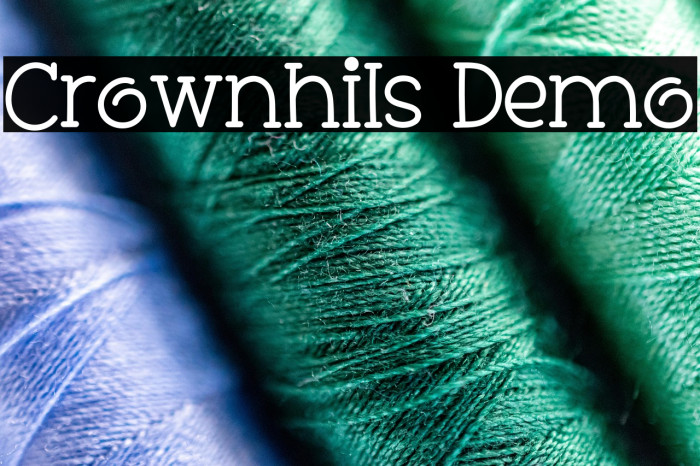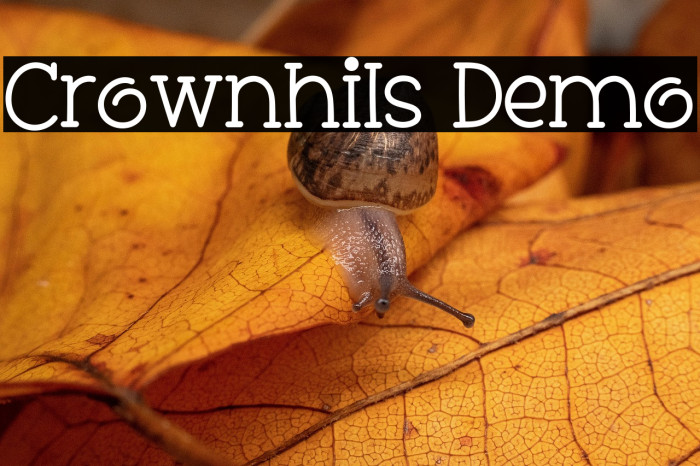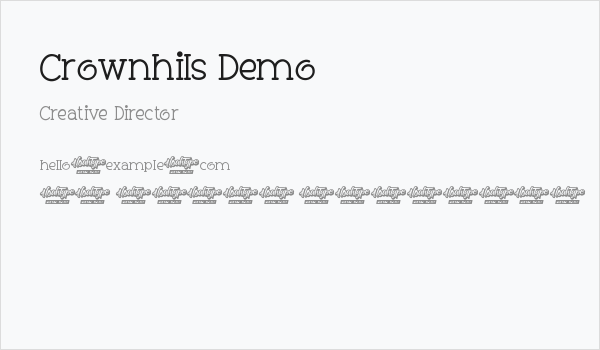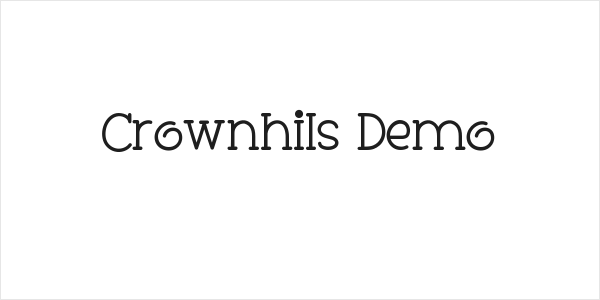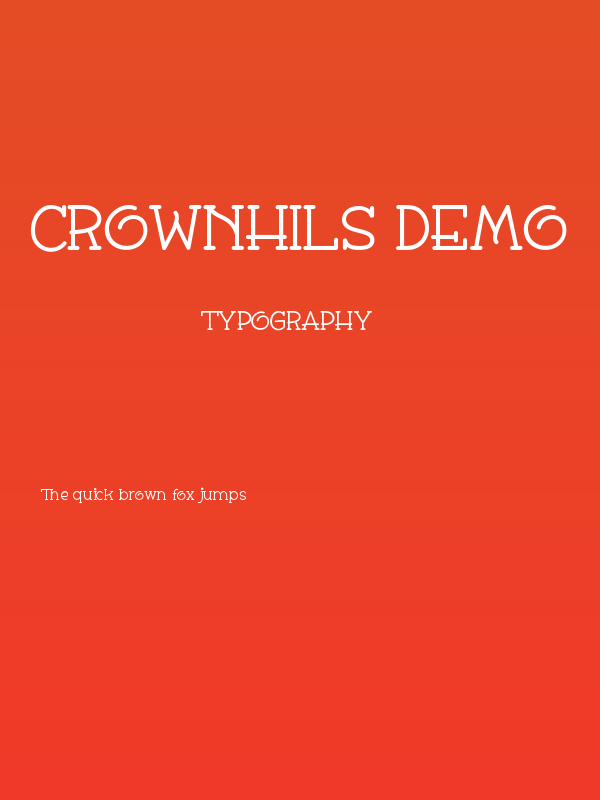
Crownhils Demo Font
Crownhils Demo Description
This font features a unique blend of modern and vintage elements, characterized by its distinct rounded serifs and clean lines. The uppercase letters exhibit a bold presence with slightly elongated forms, while the lowercase letters maintain a consistent flow with a touch of whimsy. The numerals are clear and legible, matching the overall aesthetic of the alphabet. Special characters are designed to complement the primary set, ensuring versatility across various applications. The font's design is both approachable and sophisticated, making it suitable for a wide range of creative projects.
| Overall Style | Modern Vintage |
| Use Case | Headlines, Logos, Editorial Design |